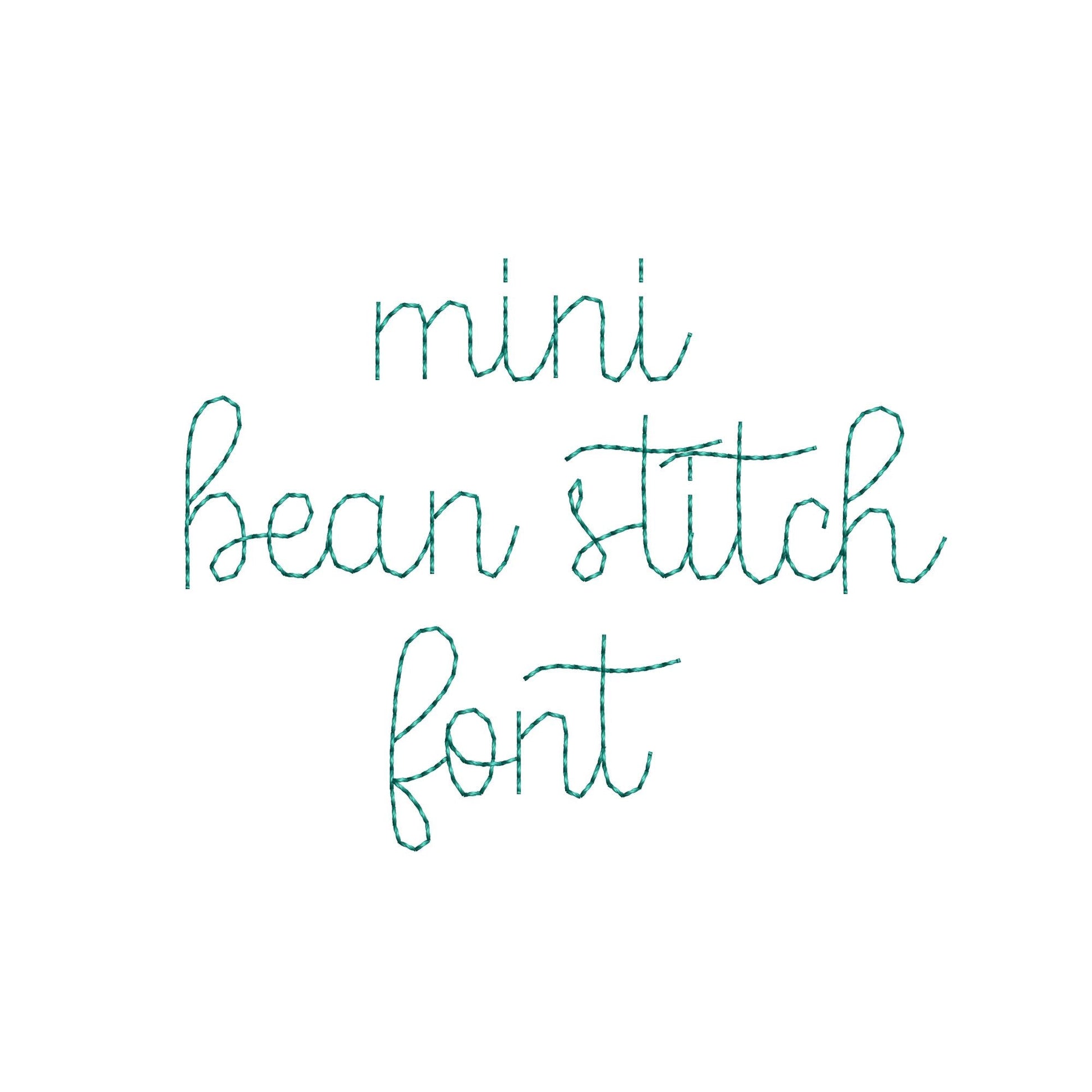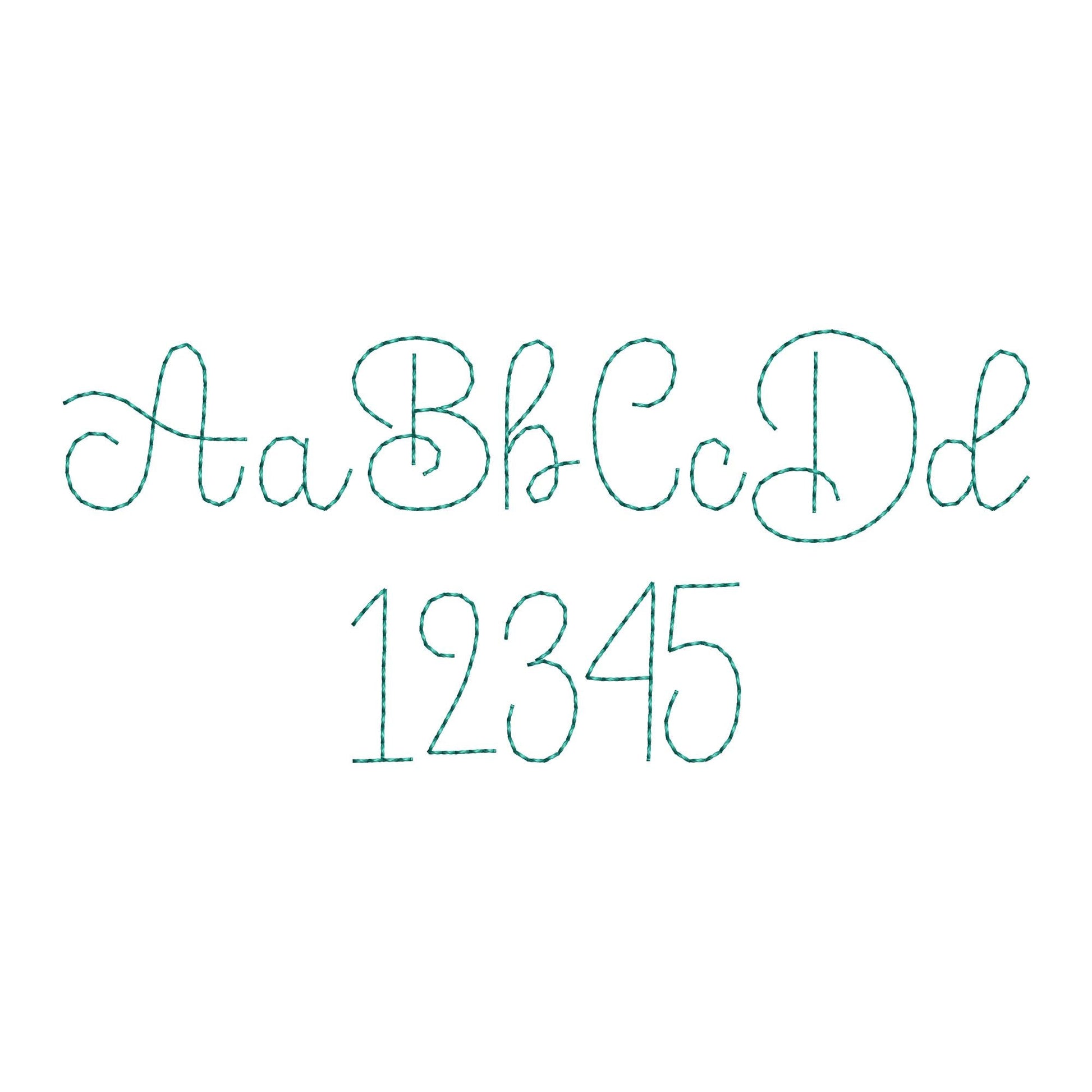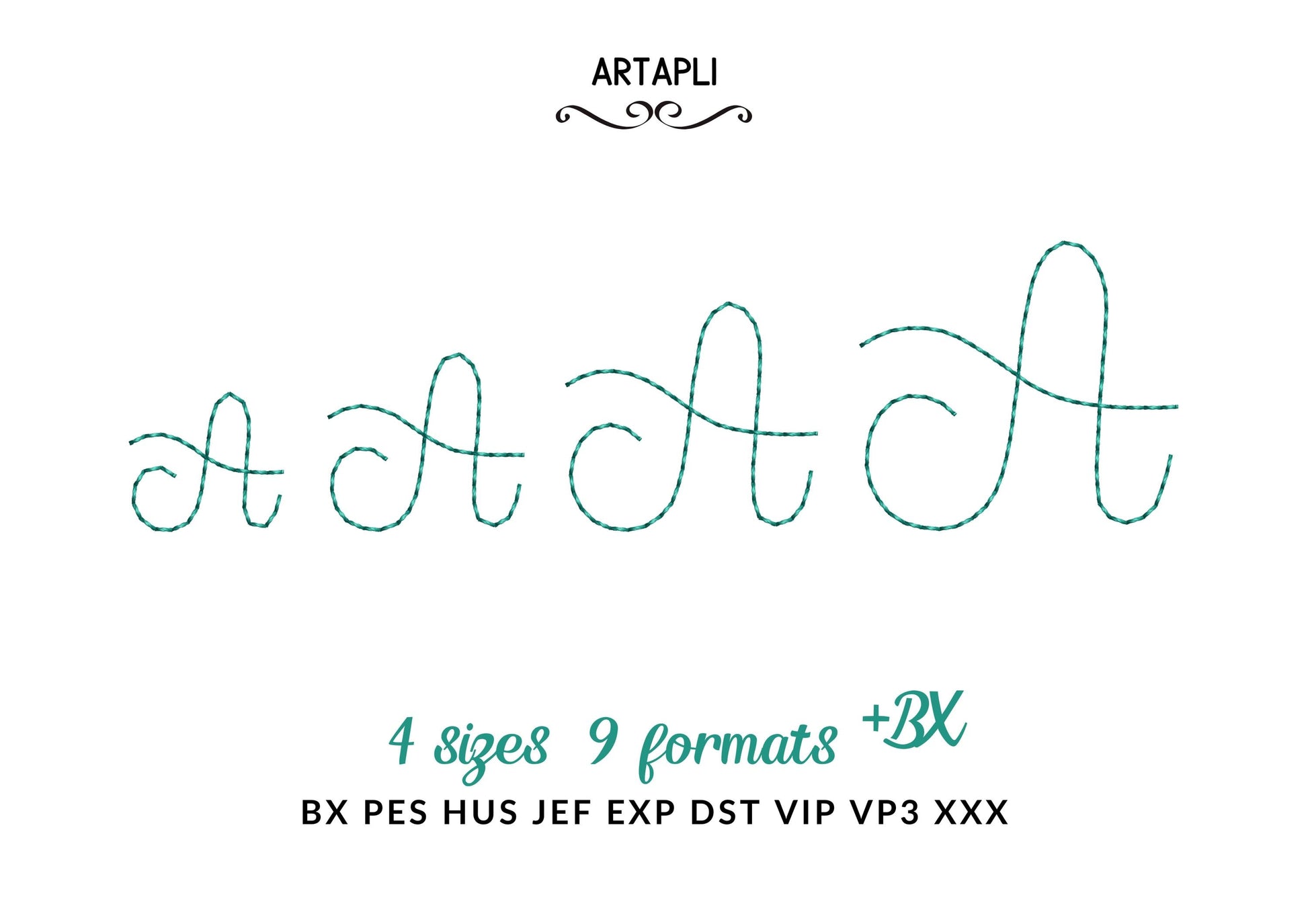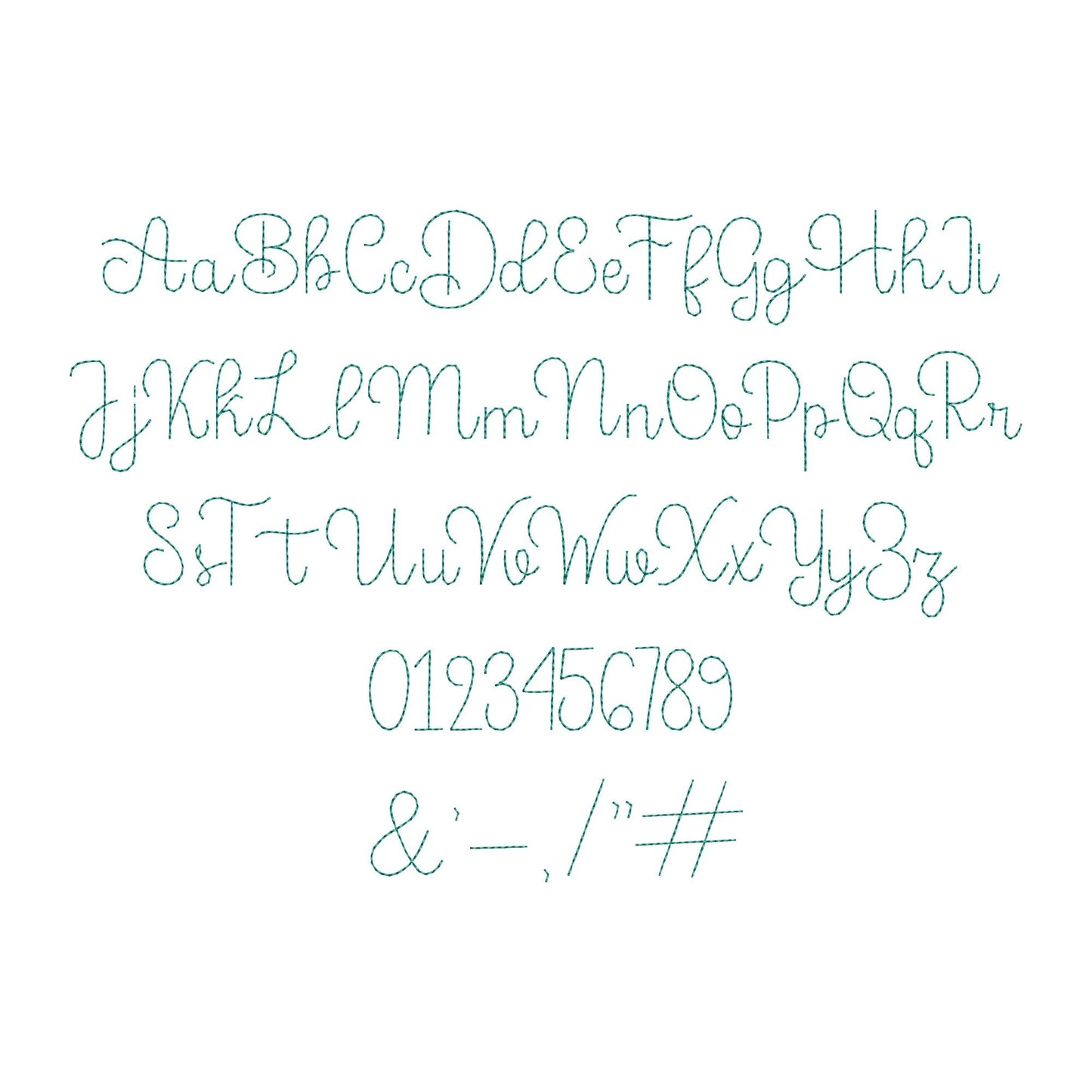
Handwritten Script Font Buddy Bean
A mini handwritten script font in bean stitch. Made for baby and kids' names on small spots like collars and pockets.
The letters come in four mini sizes: 0.6, 0.8, 1 and 1.3 inches. A simple bean stitch keeps the letters light and soft. Includes uppercase and lowercase letters A to Z, numbers 0 to 9 and punctuation.
• Mini bean stitch script font